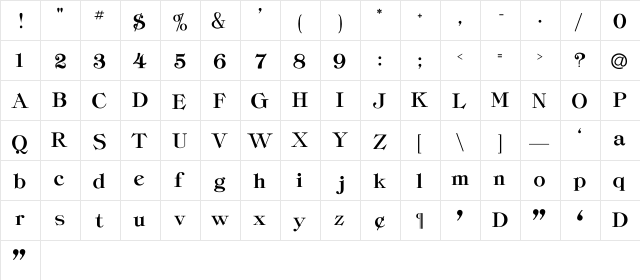
ClassicHeavy-Li Regular
Design Context for ClassicHeavy-Li Typeface
ClassicHeavy-Li has the warm character of retro typography — evoking diners, record sleeves, and the golden age of print advertising.
Font Pairing: Combine ClassicHeavy-Li with a simple slab or neutral sans — period-accurate companions reinforce the vintage feel without competing for attention.
Pro Tip: Lean into ClassicHeavy-Li's period character by pairing it with aged paper textures, muted colour palettes, and vintage illustration styles.